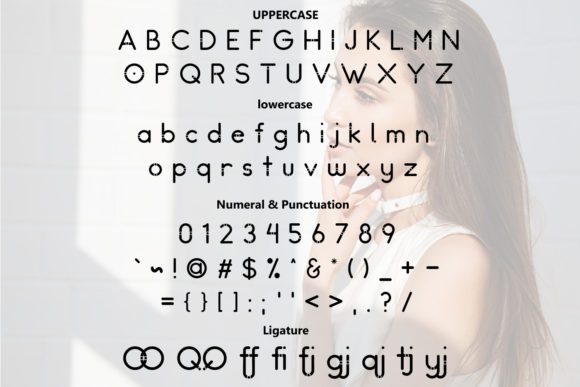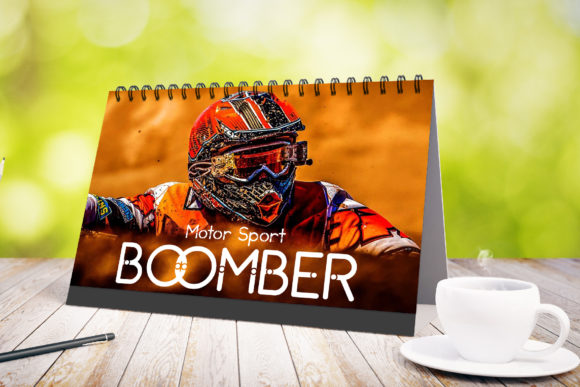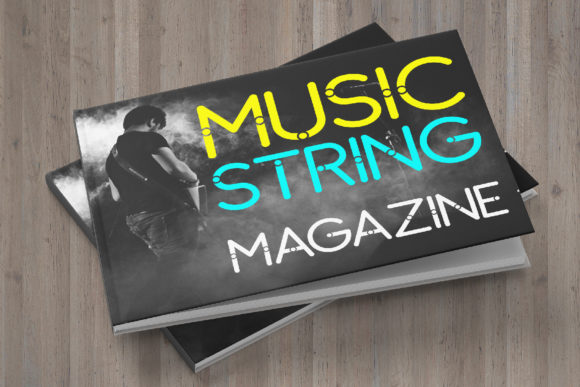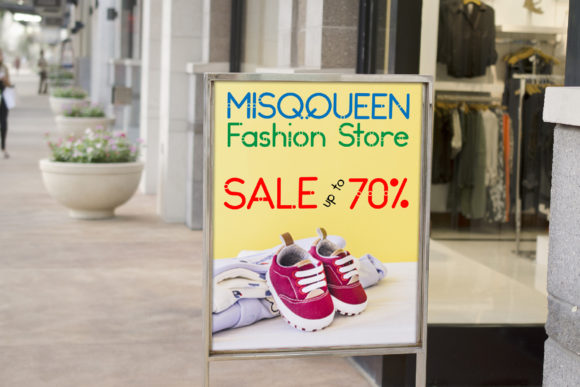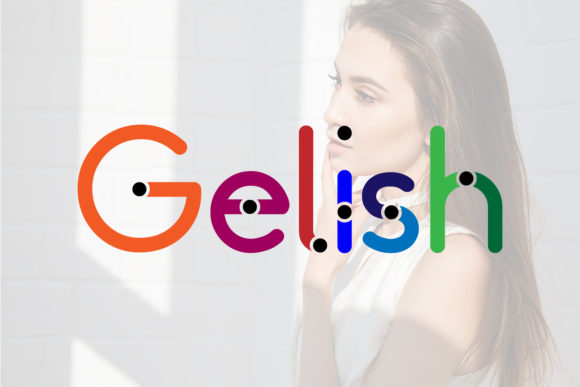
Introducing Gelish Font: The Ultimate Sans Serif for Fun Projects
Are you a designer or crafter looking for a font that’s both playful and highly legible? Look no further than Gelish Font! This sans serif font is perfect for a variety of fun projects, from crafting and DIY tutorials to social media graphics and marketing materials.
What is Gelish Font?
Gelish Font is a modern sans serif font that features playful characters and a clean, crisp design. Its highly legible letters make it easy to read, even at small sizes, while its fun and quirky vibe adds a touch of personality to any project.
Key Features of Gelish Font
- Highly Legible: Gelish Font is designed to be easy to read, even for those with visual impairments or when used in small sizes.
- Playful Characters: The font features playful characters with a touch of whimsy, making it perfect for fun and creative projects.
- Sans Serif: The clean and modern sans serif design makes Gelish Font versatile and easy to pair with other fonts.
- Multilingual Support: Gelish Font supports multiple languages, making it a great choice for international projects.
Uses for Gelish Font
Gelish Font is perfect for a wide range of fun projects, including:
- Crafting and DIY Tutorials: Use Gelish Font to add a playful touch to your crafting and DIY tutorials, making them more engaging and fun to follow.
- Social Media Graphics: Add a pop of personality to your social media graphics with Gelish Font, making them stand out in crowded feeds.
- Marketing Materials: Use Gelish Font to add a touch of whimsy to your marketing materials, such as brochures, flyers, and posters.
- Party Decorations: Create custom party decorations, such as banners and signs, with Gelish Font for a fun and playful touch.
Tips for Using Gelish Font
Here are some tips for getting the most out of Gelish Font:
- Pair with Bold Fonts: Pair Gelish Font with bold fonts for a striking contrast that adds visual interest.
- Use Bright Colors: Use bright and bold colors to match the playful vibe of Gelish Font.
- Experiment with Sizes: Experiment with different font sizes to create visual hierarchy and add emphasis to important text.
Gelish Font is a versatile and fun sans serif font that’s perfect for a wide range of projects. Its highly legible letters and playful characters make it a great choice for designers and crafters looking to add a touch of personality to their work. With its clean design and multilingual support, Gelish Font is sure to become a go-to font in your collection.